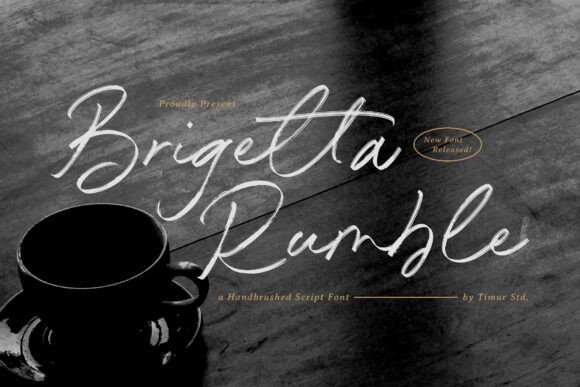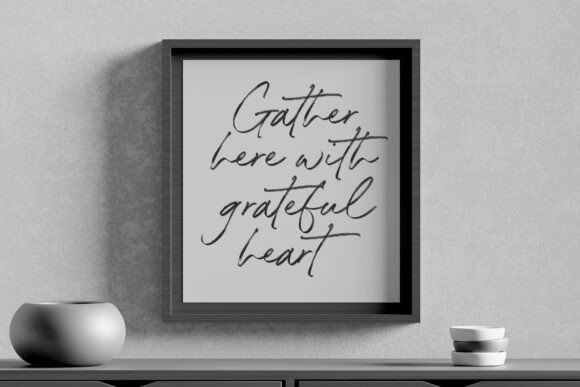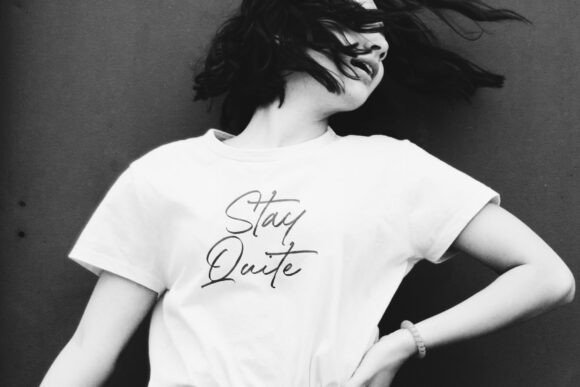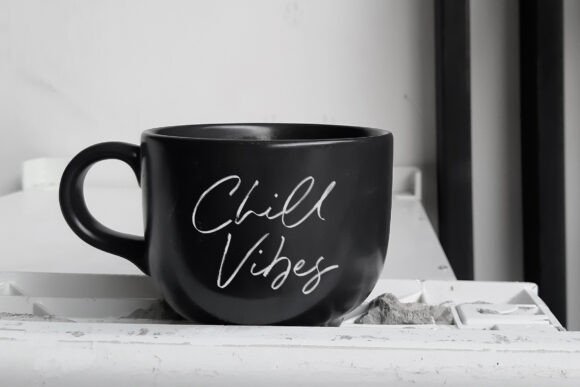
Brigetta Rumble Font
About the Brigetta Rumble Font
The Brigetta Rumble Font offers a perfect balance of form and function for your design needs. Brigetta Rumble is a stylish handbrushed script font that combines bold strokes with fluid, natural curves. Designed to evoke a sense of modern elegance and creative flair, it’s perfect for logos, branding, social media graphics, and artistic typography. Its organic brush style adds a handcrafted touch to any design.
Brigetta Rumble excels in headline applications, short-form text, and branding projects requiring a touch of handcrafted elegance. It’s ideal for logos, invitations, and short social media posts where its bold strokes make a strong visual statement. However, its organic nature makes it less suitable for body text or lengthy paragraphs; readability suffers at smaller sizes.
For a balanced aesthetic, pair Brigetta Rumble with a clean sans-serif like Montserrat or a geometric sans-serif like Futura for a modern contrast. Alternatively, a classic serif like Garamond can add a touch of traditional sophistication. Avoid pairing it with other script fonts, as this might create visual clutter.
The font’s personality is best described as bold yet elegant, modern yet handcrafted. It suits brands projecting creativity, sophistication, and a touch of rebellious energy. Think artisan goods, boutique brands, or creative studios.
Brigetta Rumble Font Usage Examples
Brigetta Rumble Font Example